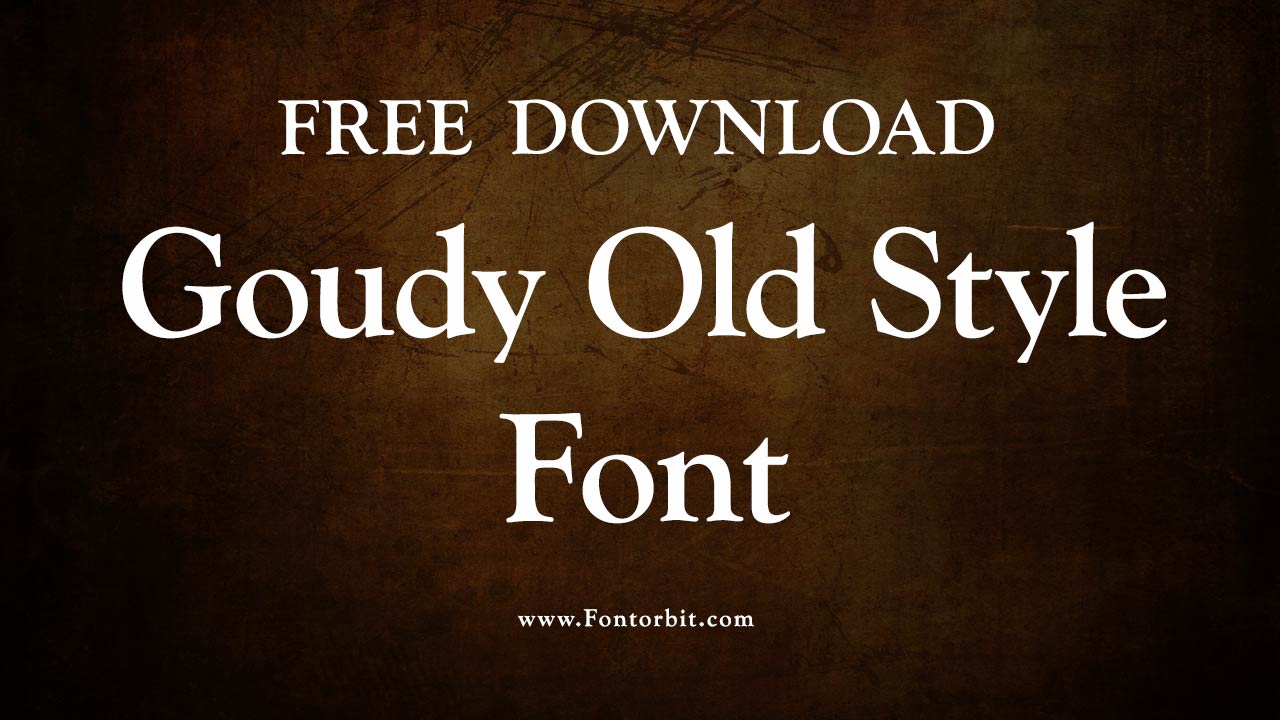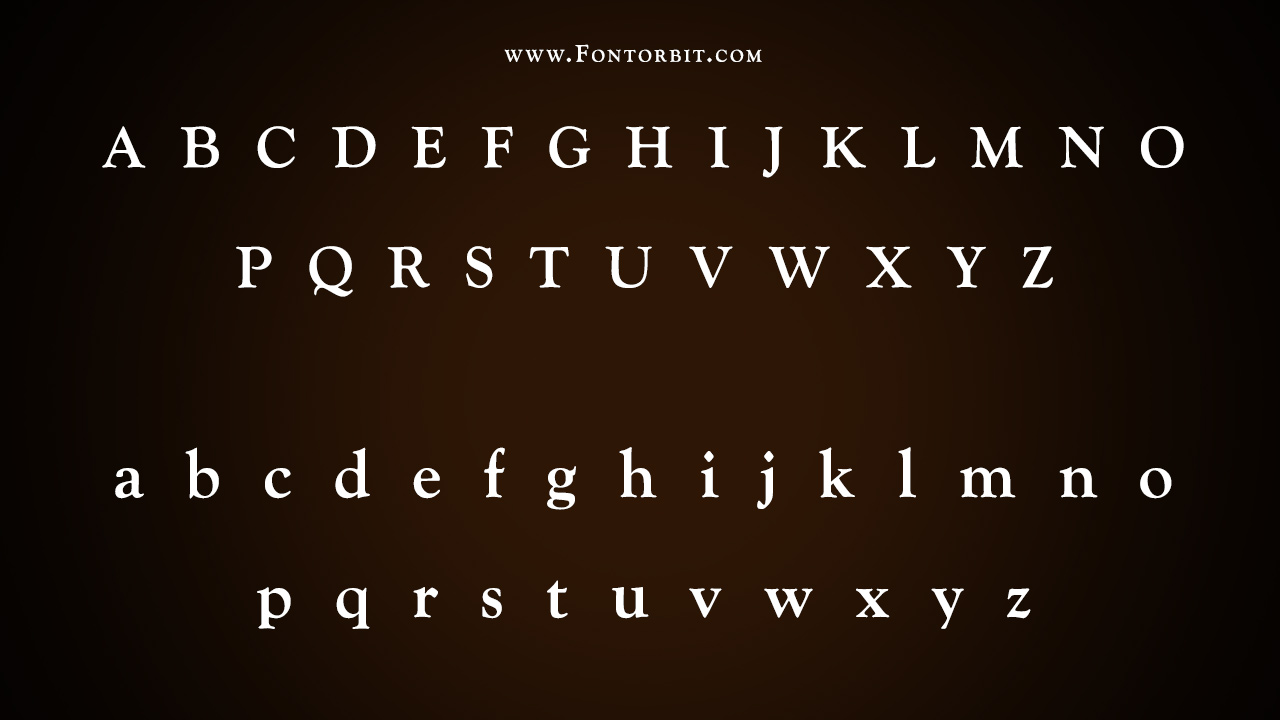
A classic serif font, Goudy Old Style was designed by Frederic W. Goudy in 1915. It belongs to the Old Style serif family and is known for its warmth, readability, and timeless elegance.
Published by multiple foundries over the years, including Bitstream and Monotype, this font maintains popularity for both print and digital mediums, especially in editorial designs and formal documents.
Goudy Old Style Family Includes
Goudy Old Style has a versatile range of styles suitable for various design contexts, with an emphasis on traditional typography. The family offers the following styles:
- Goudy Old Style Regular
- Goudy Old Style Italic
- Goudy Old Style Bold
- Goudy Old Style Bold Italic
- Goudy Old Style Extra Bold
Notable Uses Of Goudy Old Style
Goudy Old Style has been widely used in various publications and design projects, especially in books, magazines, and corporate identities. Its traditional elegance and legibility make it a favourite for long-form text and formal writing. Some notable uses include:
- Book covers and body text
- University publications and scholarly papers
- Corporate branding materials
- Certificates and awards
- Wedding invitations and event programs
Where Should I Use Goudy Old Style?
Goudy Old Style is ideal for formal, professional, and literary contexts where legibility and classic beauty are essential. It works well in both print and digital formats and shines in settings that require a traditional, dignified aesthetic.
- Editorial design (books, magazines, newspapers)
- Formal invitations and event materials
- Academic papers
- Corporate branding and presentations
- Certificates and awards
Here is a list of free alternatives that have a similar traditional serif feel to Goudy Old Style:
- Crimson Text
- EB Garamond
- Libre Baskerville
- Cormorant Garamond
- Lora
Goudy Old Style remains one of the most respected fonts in the design world due to its balance of traditional formality and elegant readability. Whether used in publishing, branding, or formal events, it brings a touch of history and sophistication to any project. Its versatility within the serif category and its timeless appeal make it a valuable addition to any designer’s toolkit.
2.Where Can I Use Goudy Old Style?
It’s great for books, academic papers, corporate branding, and invitations.
3.What Is The Style Of Goudy Old Style?
A serif typeface with a classic, traditional aesthetic.
4.What Are The Free Alternatives To Goudy Old Style?
Crimson Text, EB Garamond, and Libre Baskerville are good free alternatives.
5.Is Goudy Old Style Suitable For Web Design?
Yes, it works well for web design, especially in editorial and professional contexts.
6.Can I Use Goudy Old Style For Logos?
Yes, its formal and elegant look makes it suitable for logos in formal industries.
7.What Are The Notable Uses Of Goudy Old Style?
Primarily in books, academic papers, and corporate materials.